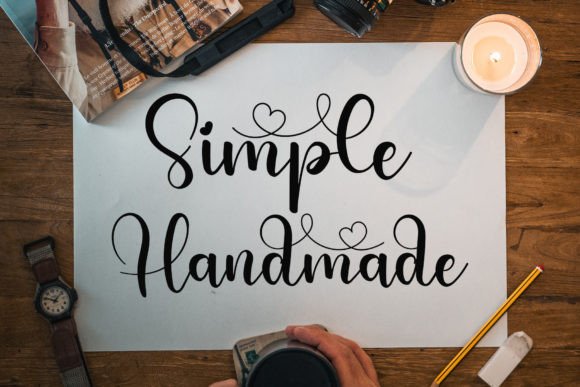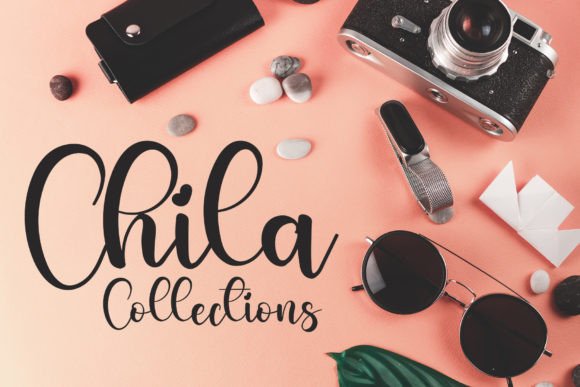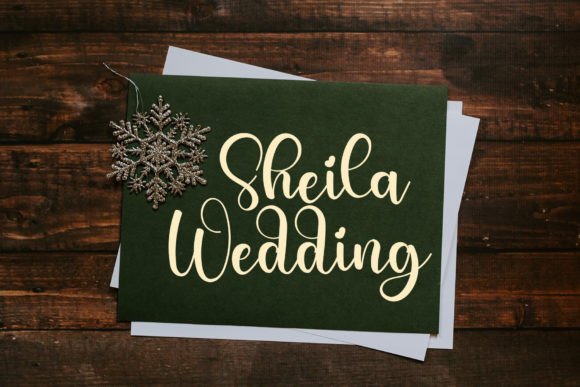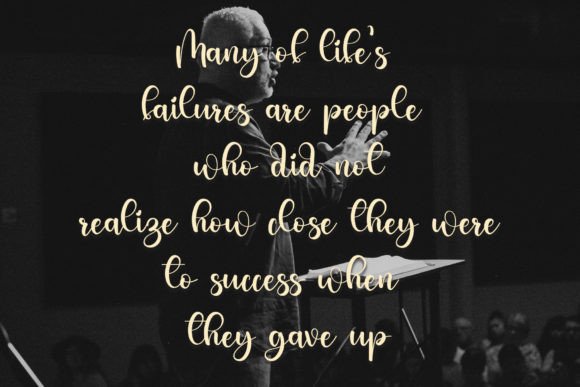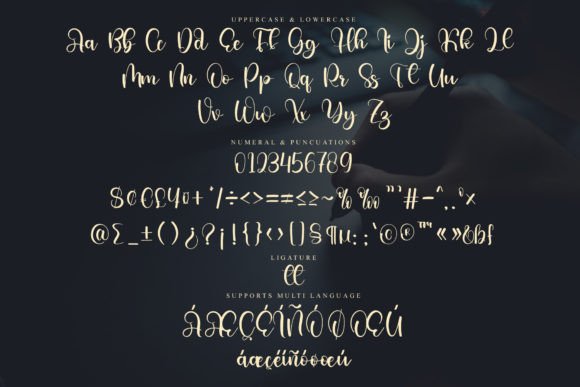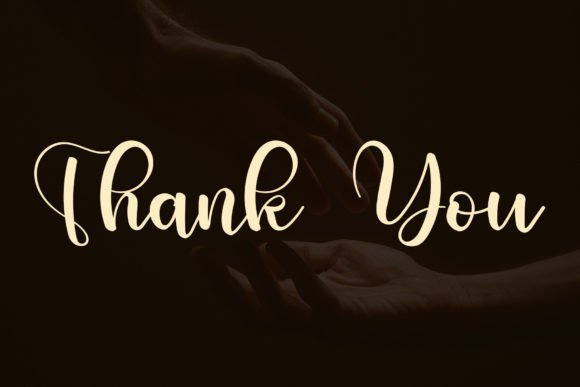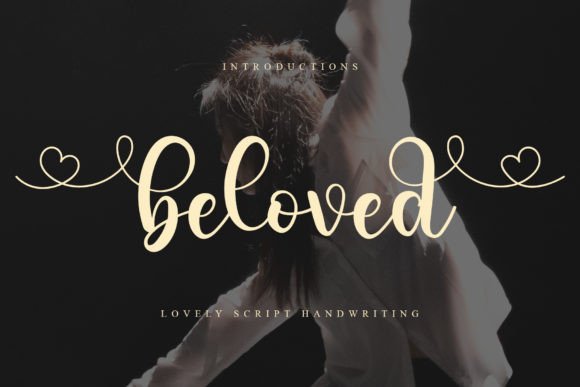
Introducing Beloved Font: Elevate Your Designs with Timeless Elegance
In the world of typography, a font can make or break the aesthetic of a design project. For designers and crafters seeking to add a touch of sophistication and elegance to their work, the Beloved Font is an exceptional choice. This stylish handwritten font boasts a contemporary atmosphere and impeccable form, drawing inspiration from timeless classic calligraphy.
The Beauty of Beloved Font
Beloved Font is a masterfully crafted typeface that exudes balance and variation, making it perfect for a wide range of design applications. Its unique blend of traditional and modern elements creates a distinctive look that is both refined and eye-catching. Whether you’re working on a logo, branding materials, or digital content, this font is sure to enhance the beauty of your projects.
Key Features of Beloved Font
- Handwritten with a personal touch: Beloved Font features a beautifully handwritten style that adds a personal and humanizing element to your designs.
- Contemporary atmosphere: With its clean lines and elegant curves, this font embodies a contemporary atmosphere that will elevate your designs to the next level.
- Impeccable form: Inspired by classic calligraphy, Beloved Font boasts impeccable form and a keen attention to detail, ensuring that your designs look polished and professional.
- Balanced and varied: This font features a balanced and varied design, making it suitable for a wide range of applications, from headings and titles to body text and more.
Why Choose Beloved Font?
With so many fonts available, why choose Beloved Font for your design projects? Here are just a few compelling reasons:
- Unique and distinctive: Beloved Font offers a unique and distinctive look that will set your designs apart from the crowd.
- Versatile: This font is incredibly versatile, making it suitable for a wide range of design applications, from print materials to digital content.
- Elegant and sophisticated: Beloved Font adds a touch of elegance and sophistication to any design, making it perfect for projects that require a high level of refinement.
Using Beloved Font in Your Designs
So, how can you use Beloved Font in your designs? Here are a few ideas to get you started:
- Logos and branding: Use Beloved Font to create a unique and memorable logo or brand identity that stands out from the competition.
- Digital content: Add a touch of elegance to your digital content, such as blog posts, social media graphics, and email newsletters.
- Print materials: Use Beloved Font in print materials, such as brochures, flyers, and business cards, to create a lasting impression.
Tips for Getting the Most Out of Beloved Font
To get the most out of Beloved Font, here are a few tips to keep in mind:
- Experiment with different sizes and colors: Don’t be afraid to experiment with different sizes and colors to find the perfect combination for your design.
- Pair with complementary fonts: Pair Beloved Font with complementary fonts to create a unique and visually appealing typography combination.
- Use it sparingly: Use Beloved Font sparingly to create emphasis and add visual interest to your designs.
In conclusion, Beloved Font is an exceptional choice for designers and crafters seeking to add a touch of elegance and sophistication to their work. With its unique blend of traditional and modern elements, this stylish handwritten font is sure to enhance the beauty of your projects. Whether you’re working on a logo, branding materials, or digital content, Beloved Font is a versatile and refined typeface that will elevate your designs to the next level.